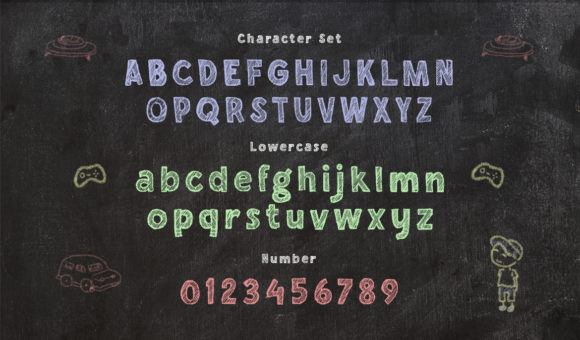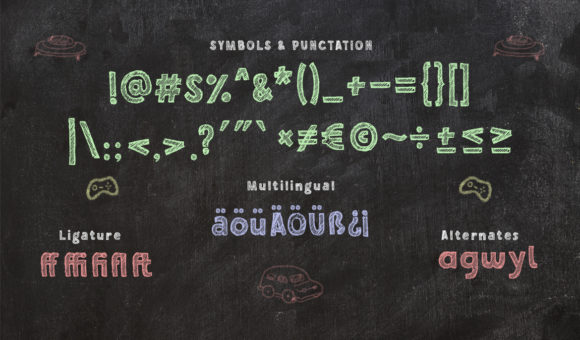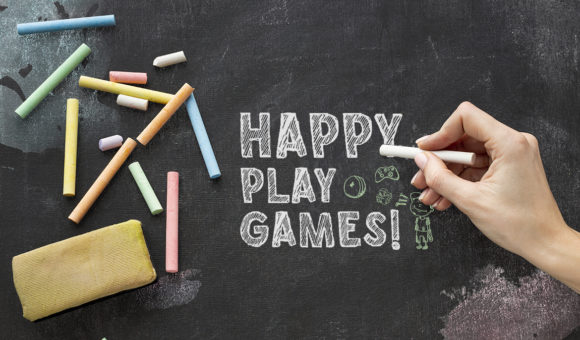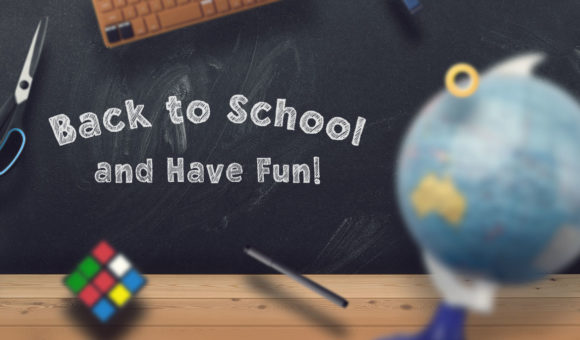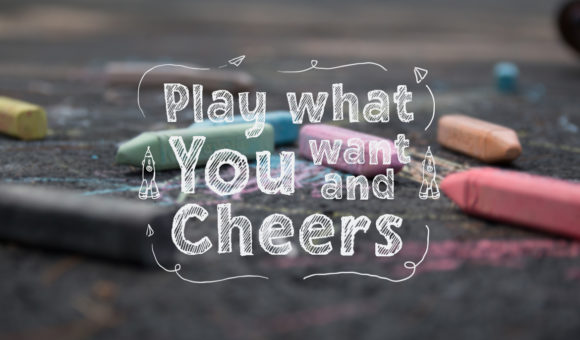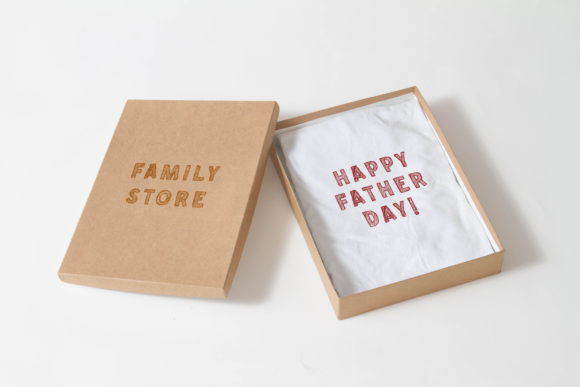
Introducing Chalkboy Font: The Ultimate Choice for Fun and Casual Designs
Are you a designer, crafter, or educator looking for a font that captures the playful spirit of childhood? Look no further than Chalkboy Font! This fun and casual display font is perfect for kids, playground, or school-themed projects, and is sure to add a touch of whimsy to your designs.
What is Chalkboy Font?
Chalkboy Font is a unique and eye-catching display font that mimics the look of chalkboard writing. With its bold, playful, and slightly imperfect lines, this font is sure to evoke memories of childhood days spent scribbling on chalkboards. Its casual and carefree vibe makes it an excellent choice for a wide range of design projects, from digital designs to handmade crafts.
Perfect for Kids, Playground, or School Themes
Chalkboy Font is specifically designed with kids, playground, or school themes in mind. Whether you’re creating materials for a children’s party, designing a logo for a kids’ play area, or crafting educational resources for the classroom, this font is sure to hit the mark. Its fun and playful personality will instantly capture the attention of kids and adults alike, making it an excellent choice for:
- Kids’ party invitations and decorations
- Playground and park signage
- School projects and educational resources
- Children’s book titles and illustrations
Versatile and Multifaceted
One of the best things about Chalkboy Font is its versatility. This font can be used for a wide range of design projects, including:
- Digital designs: Use Chalkboy Font to add a playful touch to your social media graphics, blog posts, and website headers.
- Crafting: Add a personal touch to your handmade crafts, such as greeting cards, scrapbook pages, and DIY decorations.
- Presentations: Use Chalkboy Font to create engaging and interactive presentations for kids or educational settings.
- Greeting cards: Create fun and playful greeting cards for kids’ birthdays, holidays, or special occasions.
Why Choose Chalkboy Font?
So why choose Chalkboy Font over other display fonts? Here are just a few reasons why this font stands out:
- Unique and eye-catching design
- Fun and playful personality
- Perfect for kids, playground, or school themes
- Versatile and multifaceted
Tips for Using Chalkboy Font
To get the most out of Chalkboy Font, here are a few tips to keep in mind:
- Use it sparingly: Chalkboy Font is a display font, so it’s best to use it sparingly to add emphasis and visual interest to your designs.
- Pair it with other fonts: Experiment with pairing Chalkboy Font with other fonts to create a unique and visually appealing combination.
- Adjust the size and color: Play around with different sizes and colors to find the perfect combination for your design.
In conclusion, Chalkboy Font is a fun and casual display font that’s perfect for kids, playground, or school-themed projects. Its unique and eye-catching design, versatile and multifaceted nature, and easy-to-read personality make it an excellent choice for designers, crafters, and educators. Whether you’re creating digital designs, crafting handmade projects, or designing educational resources, Chalkboy Font is sure to add a touch of whimsy and fun to your work.
Get Creative with Chalkboy Font!